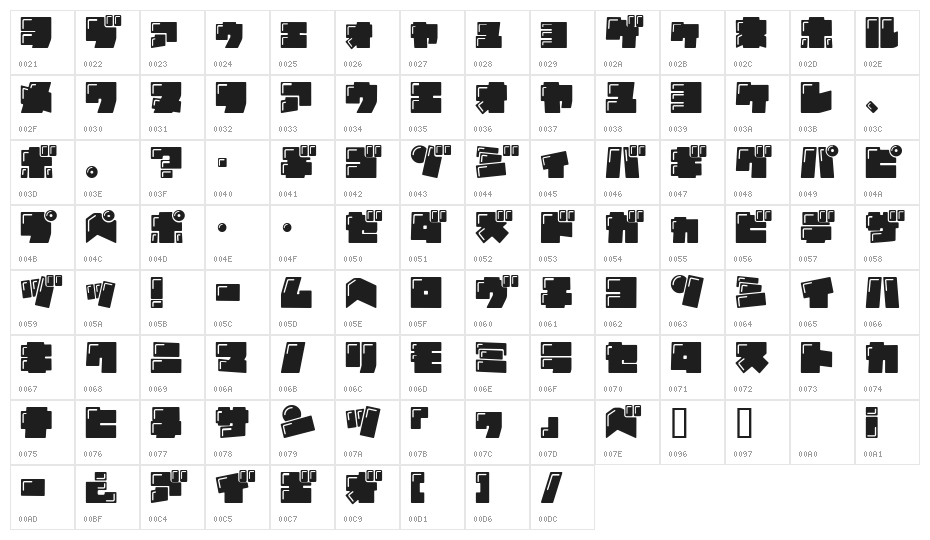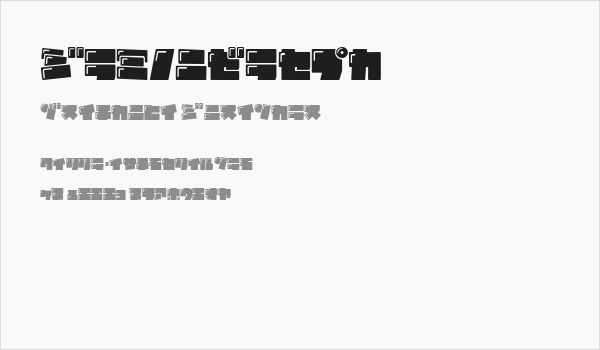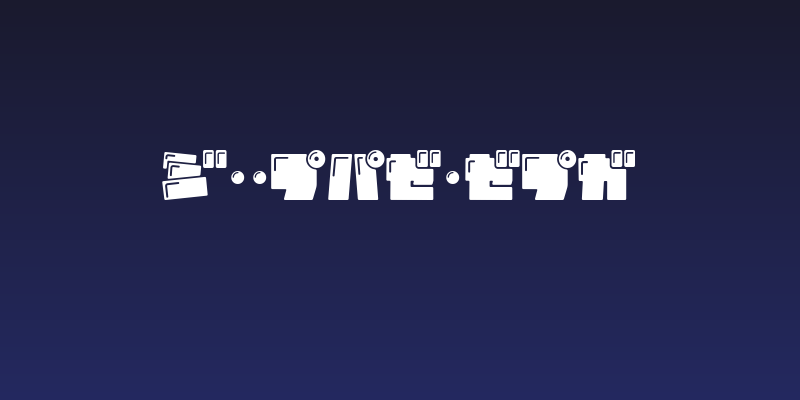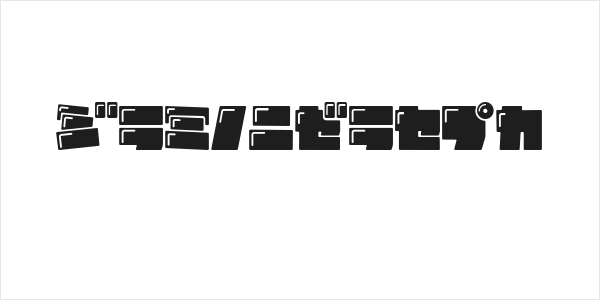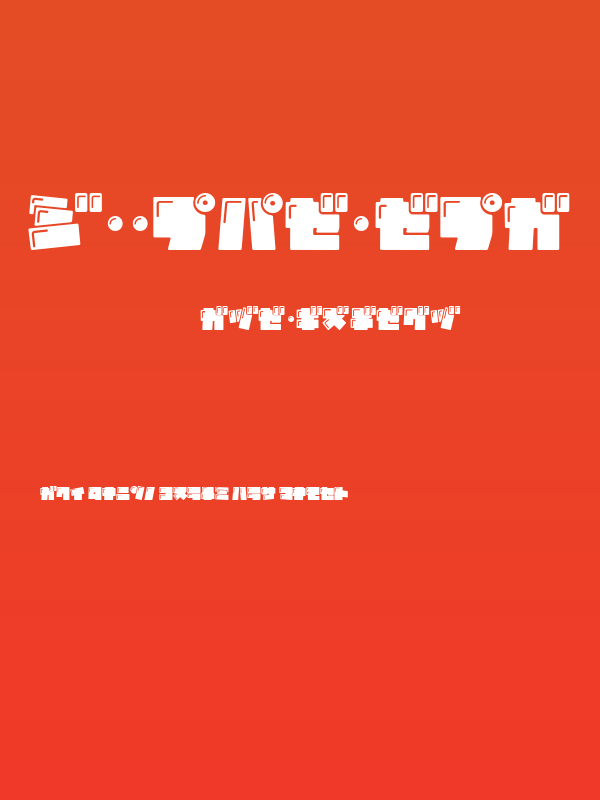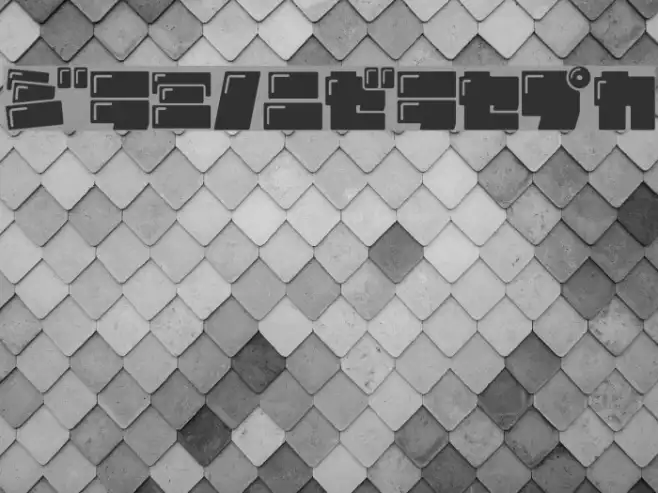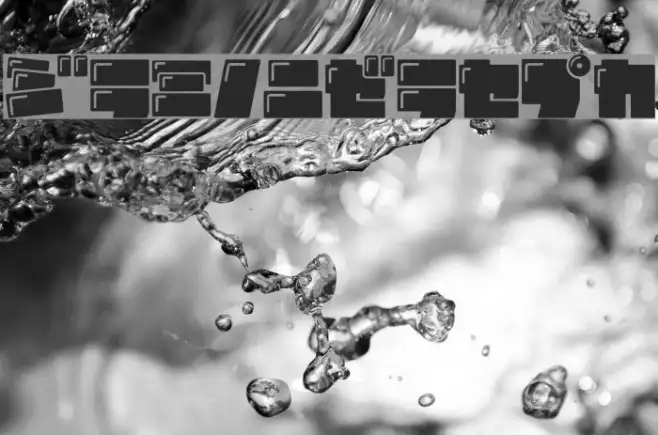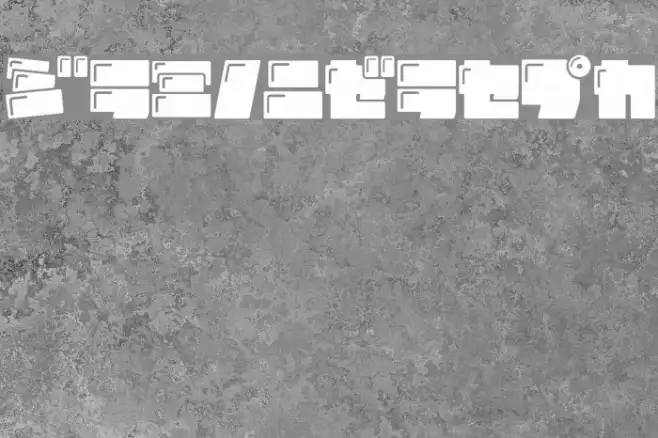
DonkiPopKt Font
DonkiPopKt Description
This font features bold, blocky characters with a playful and dynamic style. The letters are heavily stylized with exaggerated geometric shapes, giving them a cartoonish and whimsical appearance. The strokes are thick and uniform, contributing to a strong visual impact. The characters are tightly spaced, enhancing the boldness and making the text appear compact. This font is highly decorative, with each letter having a unique flair, making it ideal for eye-catching designs. The overall style is modern and fun, suitable for creative and informal applications.
| Overall Style | Modern, Playful |
| Proposed Projects | Ideal for children's book covers, playful posters, video game graphics, and branding for fun and creative products. |